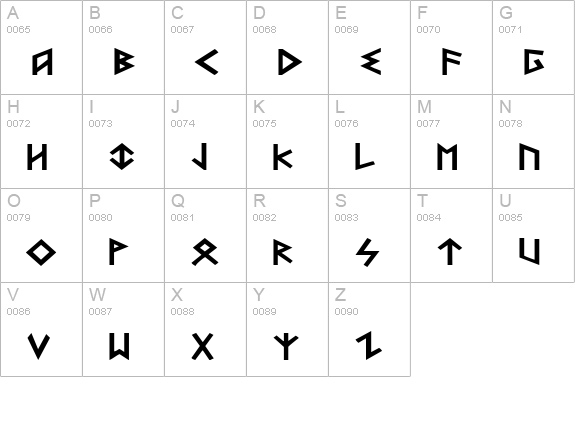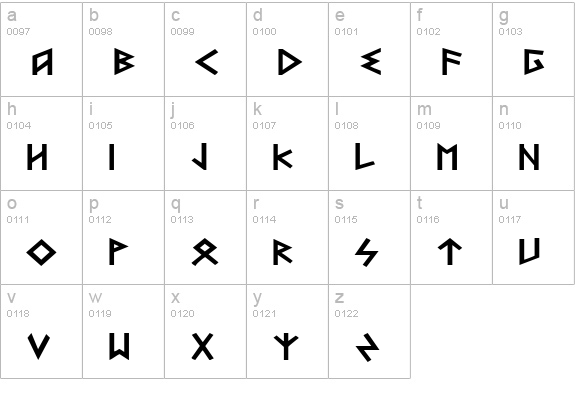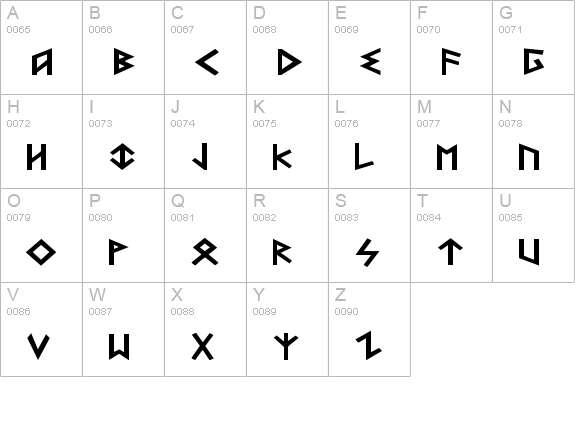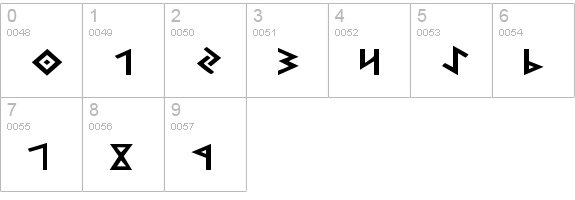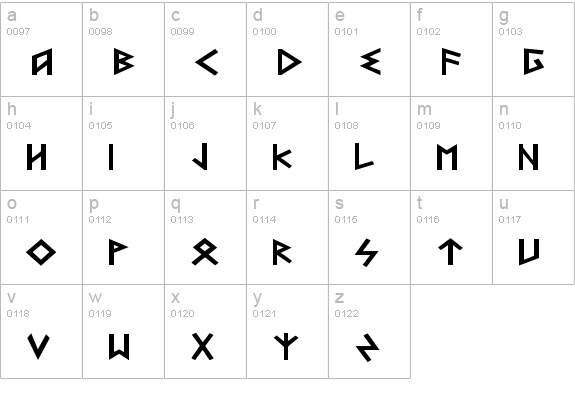
Heorot Expanded Font Details
Heorot Expanded is a distinctive, extended-width variant in the Heorot typeface family \xE2\x80\x94 well suited to design and typography projects.
Heorot Expanded font is a modern and stylish typeface that exudes sophistication and elegance. Its sleek lines and bold letterforms make it perfect for eye-catching headlines, logos, and branding projects. The expanded version of the Heorot font adds an extra touch of uniqueness and versatility to your designs. What sets Heorot Expanded font apart is its seamless blend of classic and contemporary elements, making it a versatile choice for various design projects. Whether you're working on a website, advertising materials, or print designs, this font is sure to make a statement. The best part is that Heorot Expanded font is available for free download at FontsMarket.com. So, you can easily access this high-quality font and elevate your designs without breaking the bank. Don't miss out on this fantastic opportunity to add Heorot Expanded font to your font collection today!